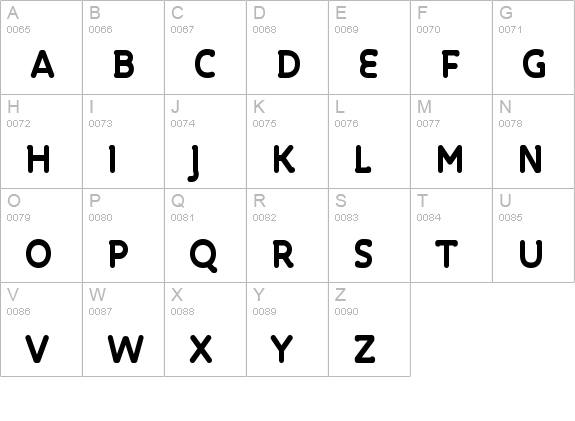
Roice-Black Font Details
Roice-Black is a maximum-weight, dramatic variant in the Roice typeface family \xE2\x80\x94 well suited to maximum-impact headlines, posters, and packaging.
Introducing the elegant and sophisticated Roice-Black font - a modern typeface that exudes a sense of timeless charm and professionalism. With its bold and sleek design, Roice-Black is perfect for creating eye-catching headlines, logos, and branding materials. This versatile font strikes the perfect balance between classic elegance and contemporary style, making it suitable for a wide range of design projects. The best part? Roice-Black is completely free to download at FontsMarket.com! Simply head over to the website and add this stunning font to your collection with just a few clicks. Whether you're a seasoned designer looking to refresh your font library or a newcomer eager to explore new typography options, Roice-Black is sure to become a valuable asset in your creative toolkit. Don't miss out on this fantastic opportunity to enhance your designs with the beauty and sophistication of Roice-Black font - download it now and let your creativity soar!